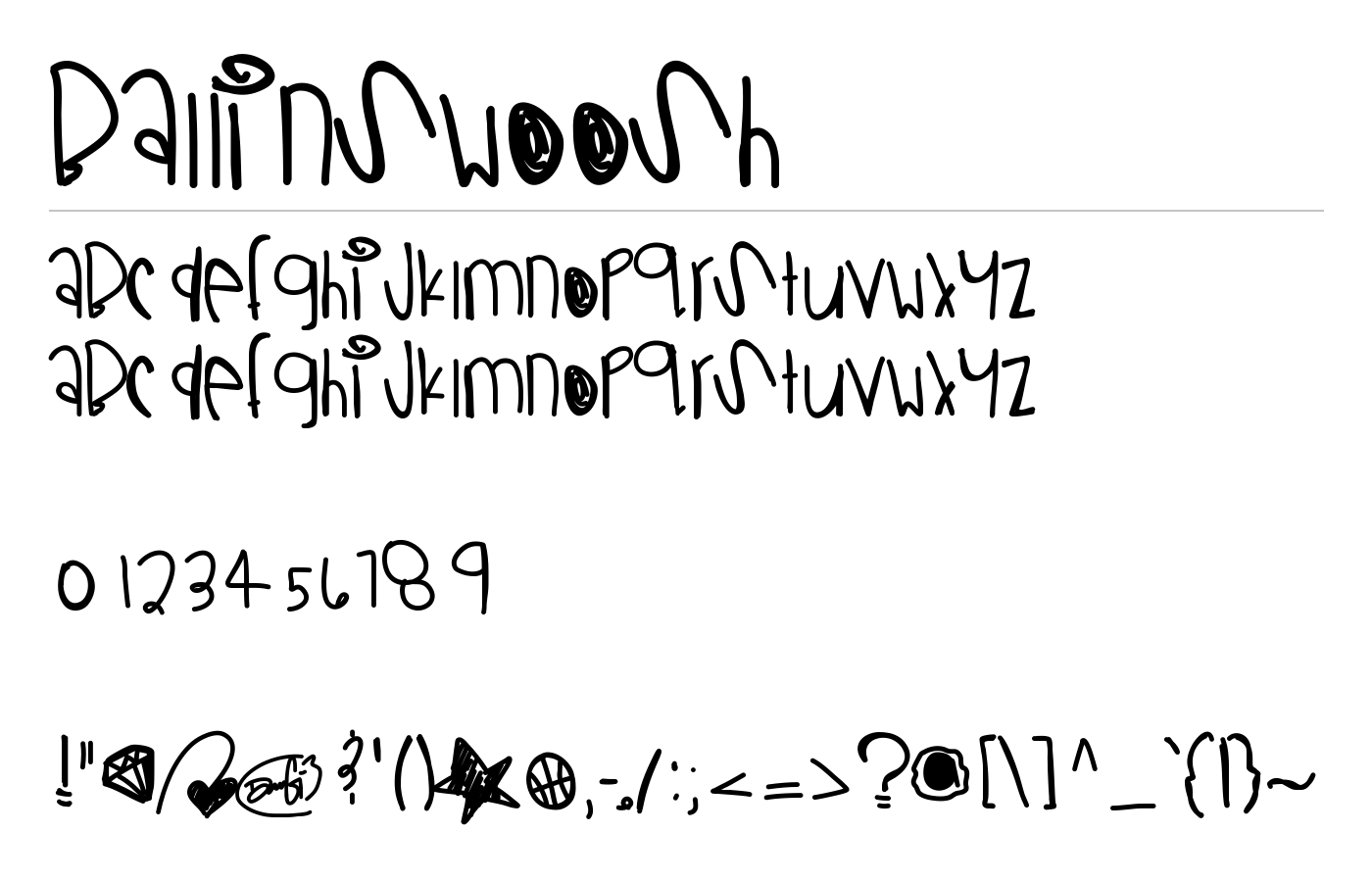
BallinSwoosh is a playful, hand-drawn font with a casual and quirky vibe, featuring thin strokes and a loose, irregular structure that gives it a lively and informal feel. Its whimsical letterforms and unique embellishments make it ideal for creative projects, children’s designs, or anything aiming to convey personality and a fun, approachable tone. This font works best for logos, headlines, and playful branding where a relaxed, artistic style is desired.
BallinSwoosh Font
About BallinSwoosh Font